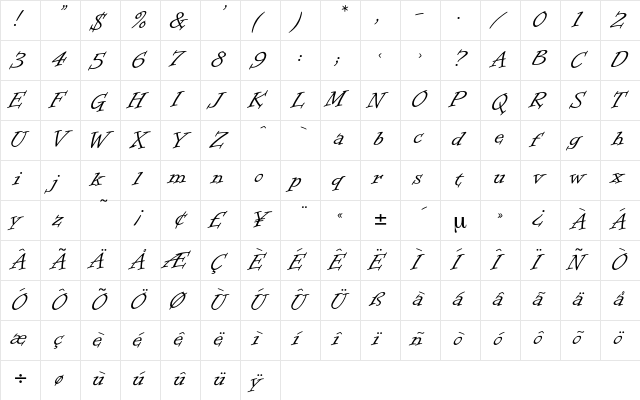
Intermezzo Regular
Design Context for Intermezzo Typeface
Intermezzo takes a measured approach to typography — its balanced proportions and neutral character make it a reliable workhorse for both digital and print work.